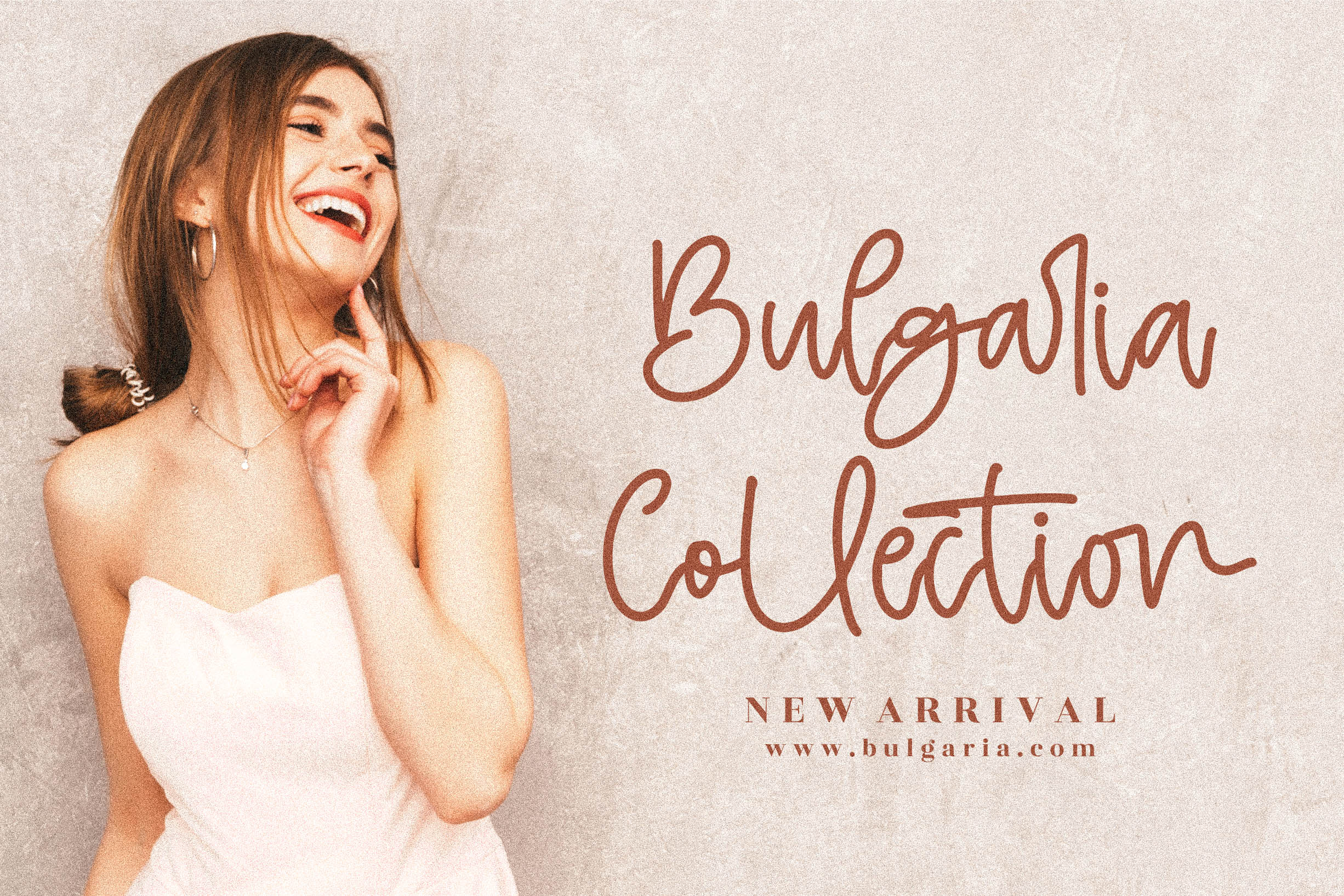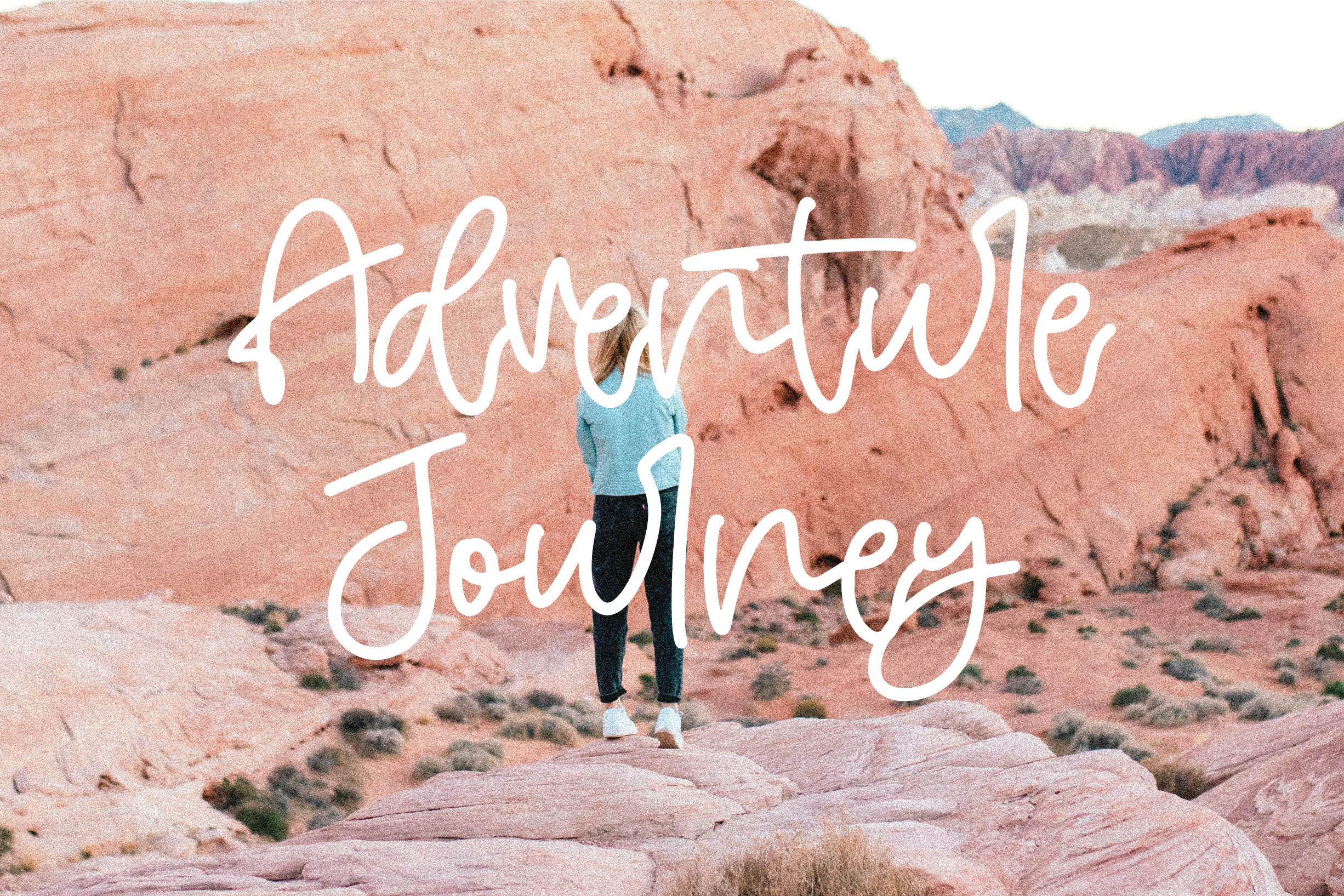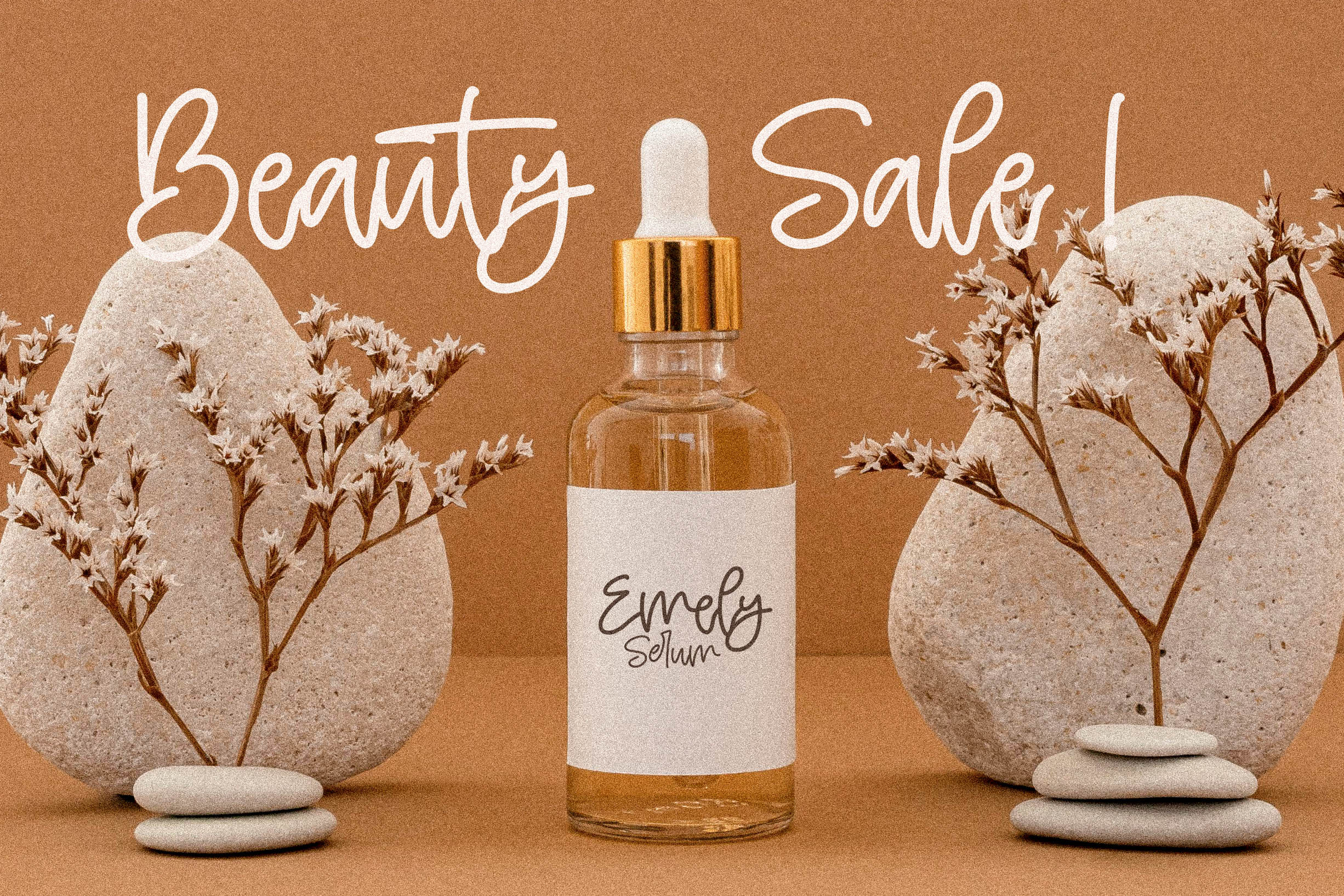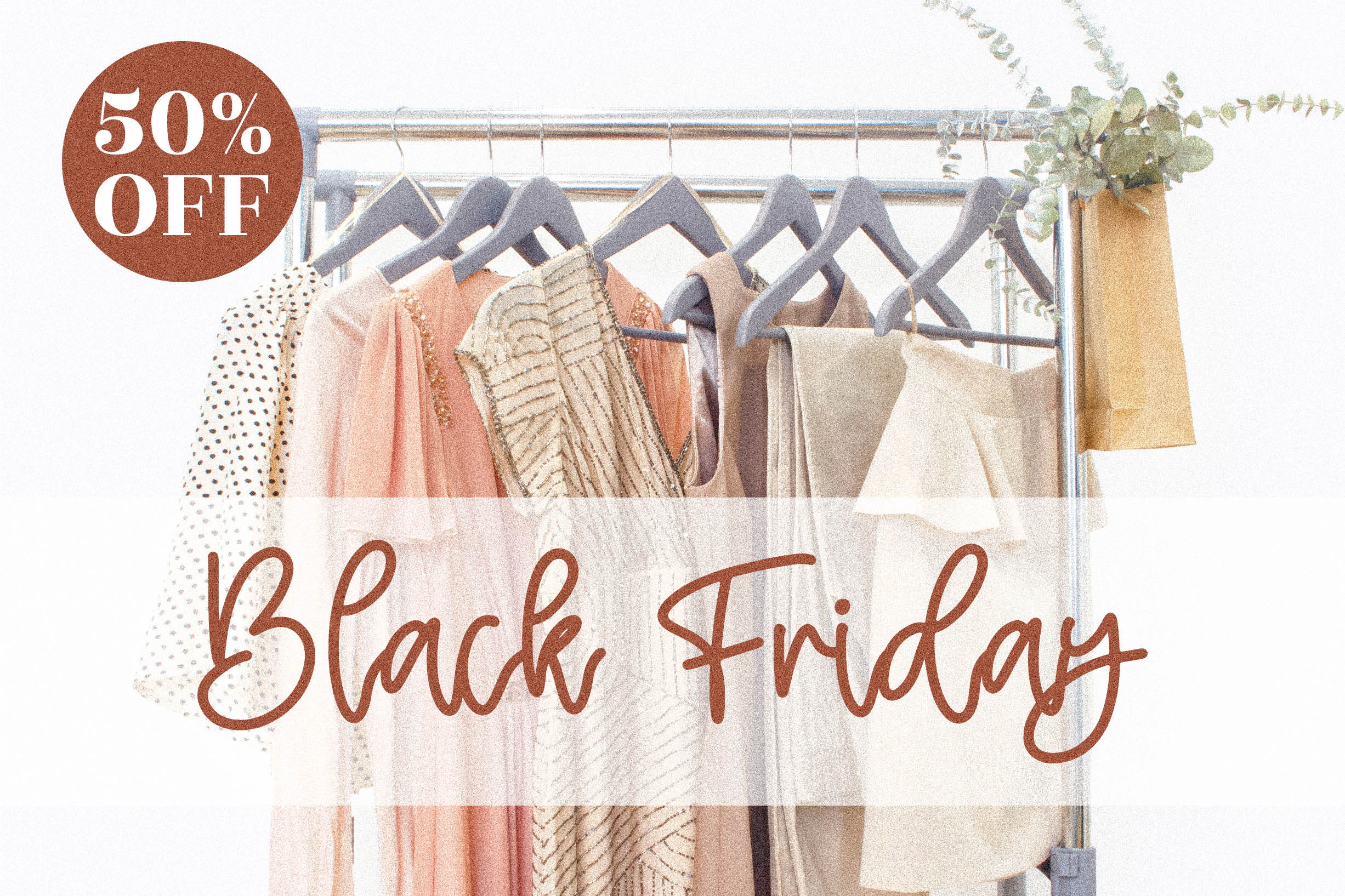
Hello Bird Font
Hello Bird Handwritten Font
This is a handwritten font, suitable for any projects such as: logos, branding projects, homeware designs, product packaging, mugs, quotes, posters, shopping bags, t-shirts, book covers, name card, invitation cards, greeting cards, label, photography, watermark, special events, and all your other luxury projects that need a handwritten taste.